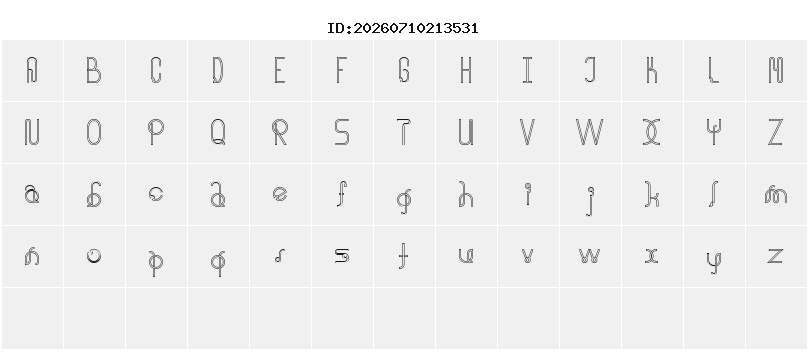
halusinasi penuh Preview
• Font Name: halusinasi penuh
• Full Font Name: halusinasi penuh
• PostScript Name: halusinasipenuh
• Designer: cenz qobbal
• Manufacturer: cenz qobbal
About halusinasi penuh.ttf
halusinasi penuh.ttf is a modern, elegant sans-serif font designed for ultimate readability and visual harmony. Perfect for branding, headlines, web design, and print materials.